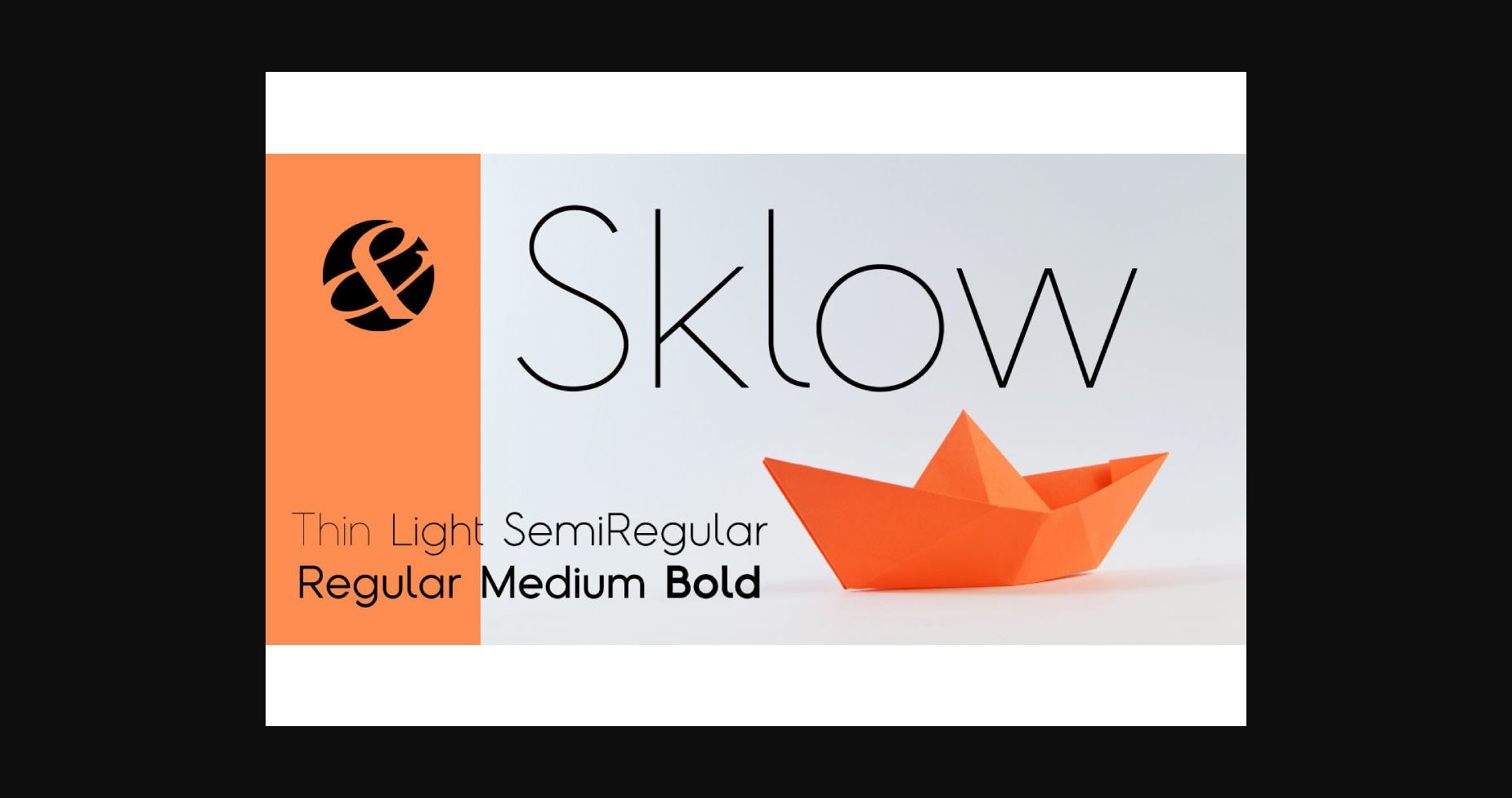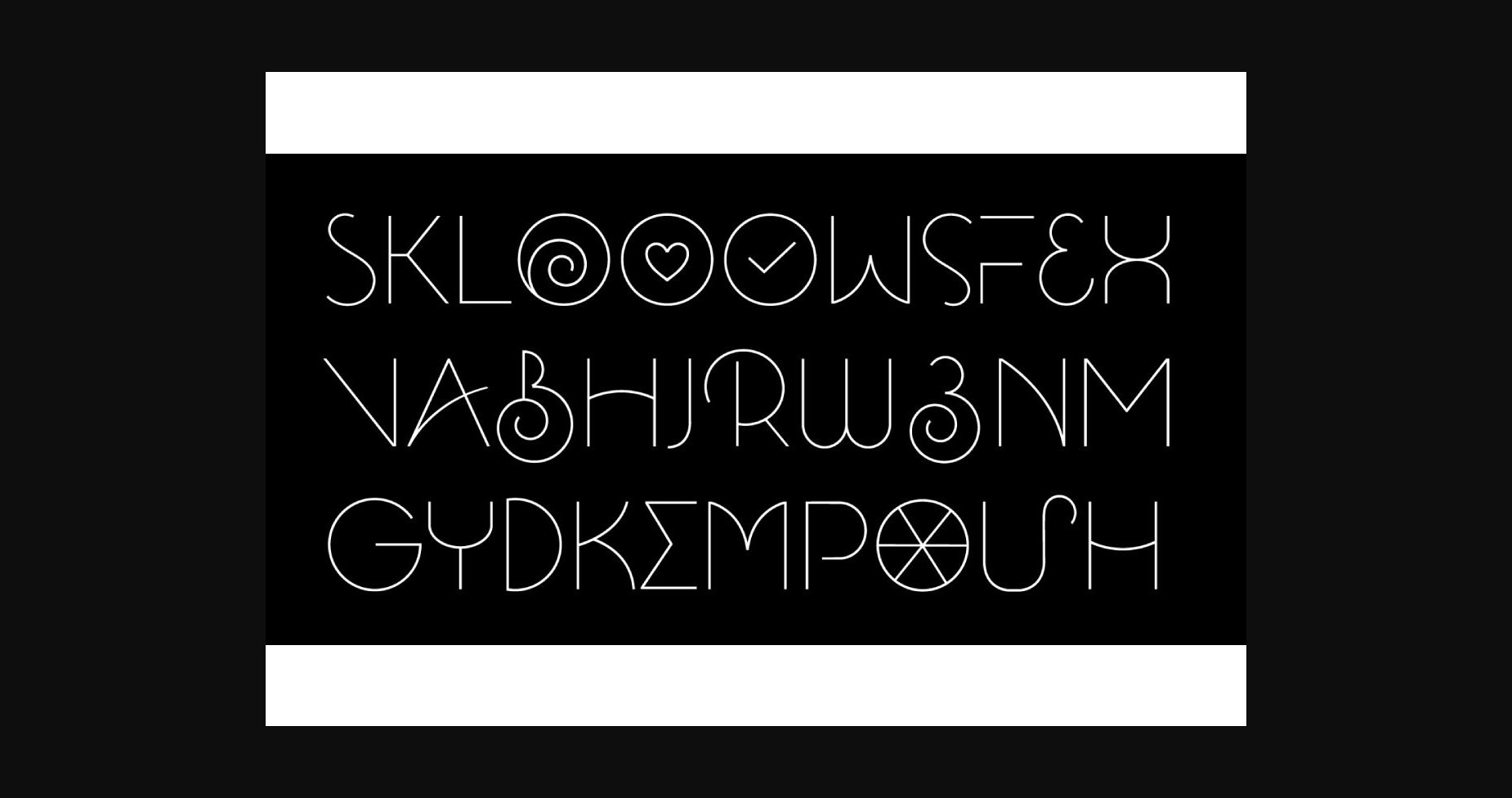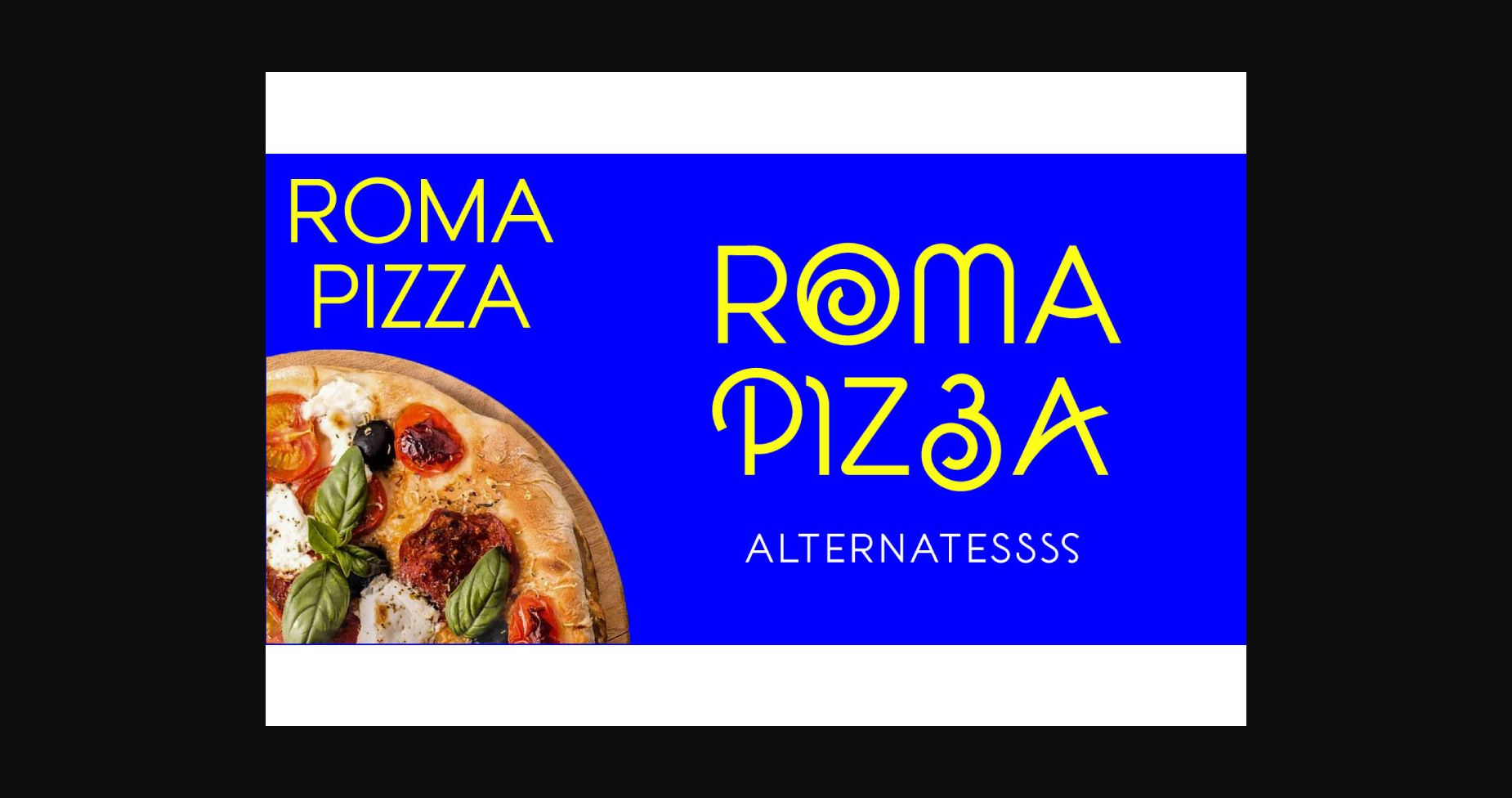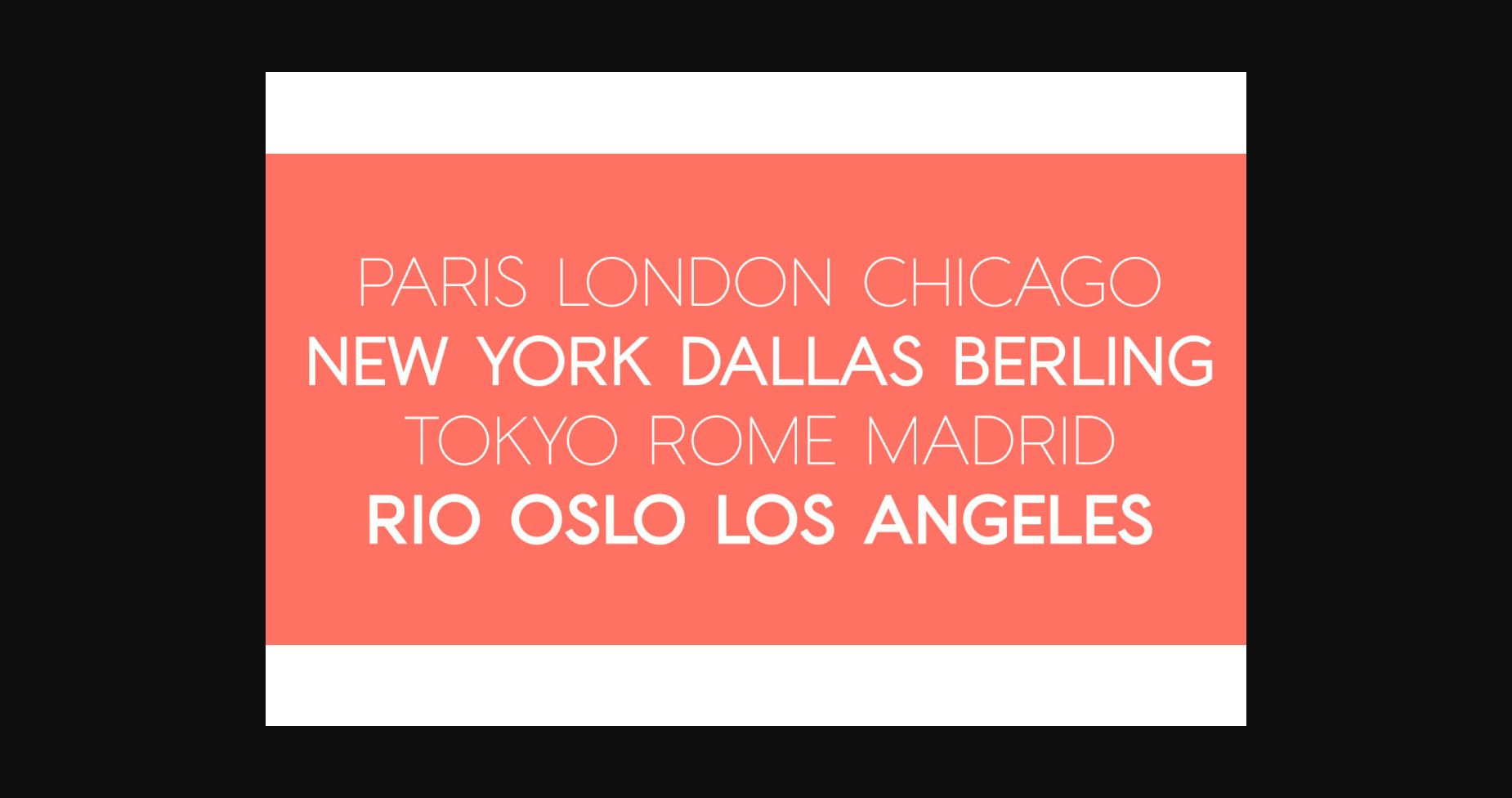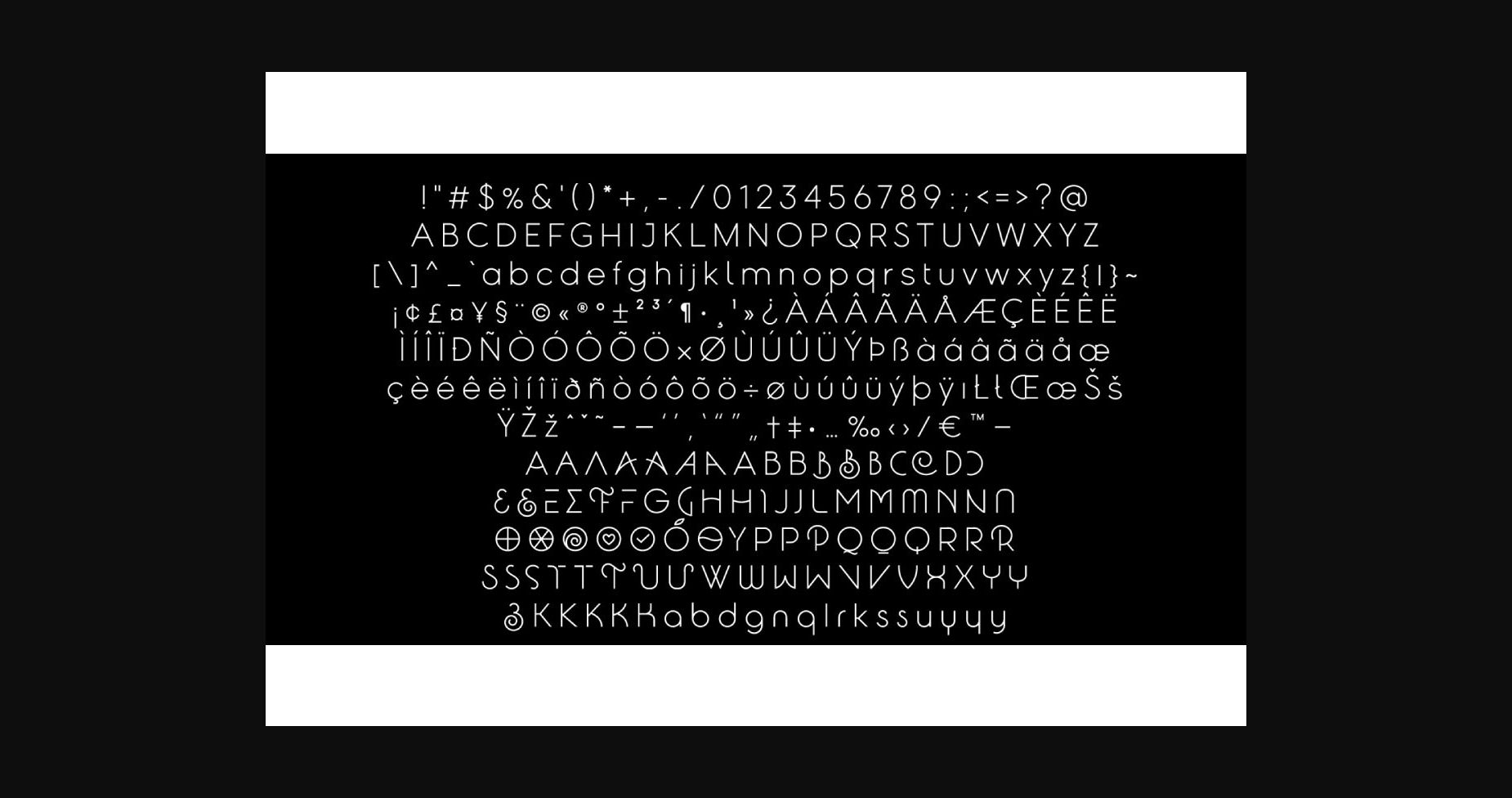
About Sklow Font
Sklow is a light and simple sans serif font. It can easily be matched to an incredibly large set of projects, so add it to your creative ideas and notice how it makes them stand out!